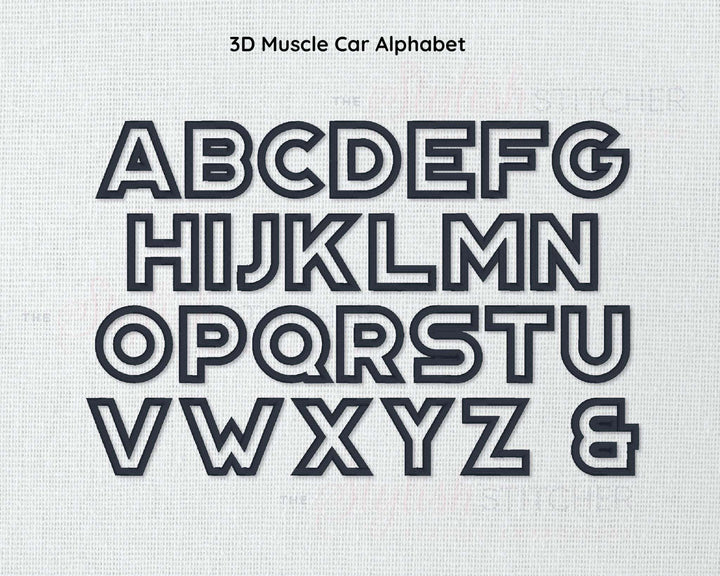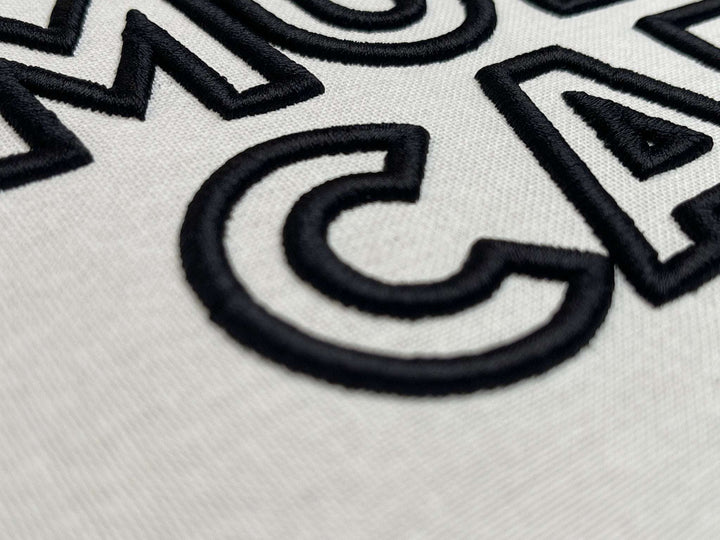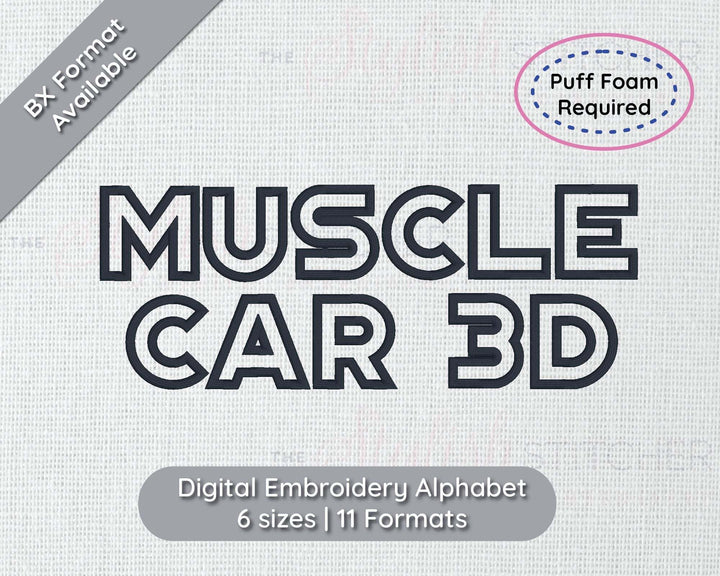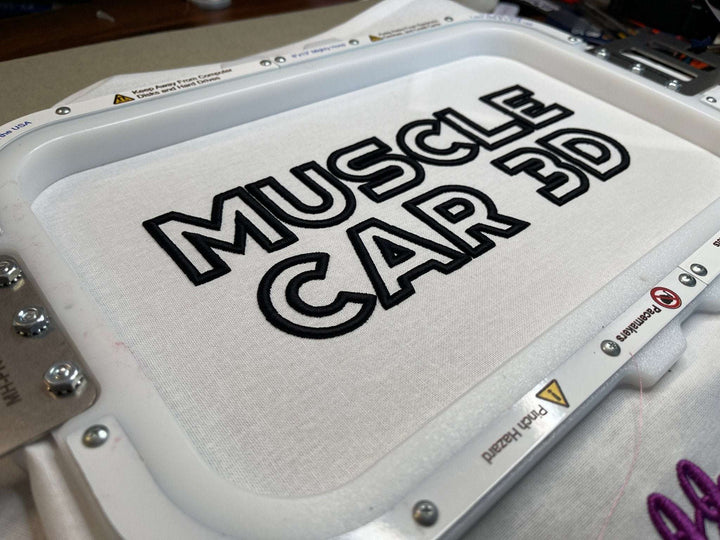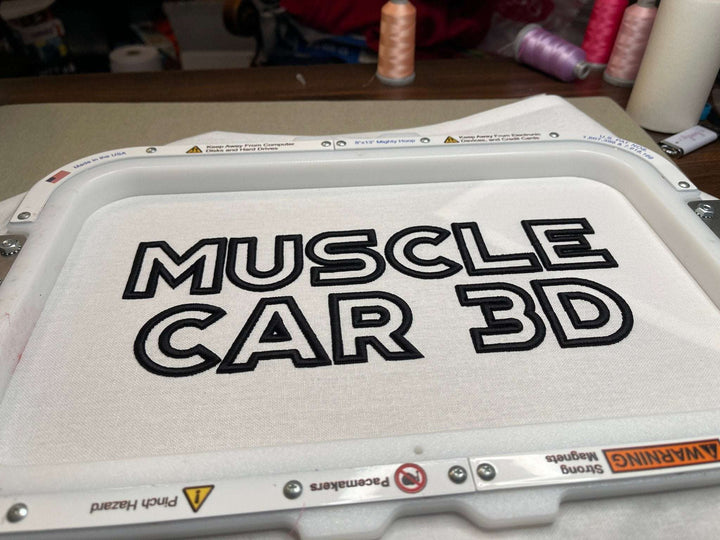
Photograph of Muscle Car 3D embroidery font
Photograph of Muscle Car 3D embroidery font alphabet
Close up photograph of stitched out Muscle Car 3D embroidery font
Photograph of Muscle Car 3D embroidery font
Muscle Car 3D Puff Digital Embroidery Font
Muscle Car 3D is a fresh take on outline fonts. Digitized specifically for puff foam, this clean looking font is perfect for sweatshirts, shirts and caps!
Stitch Type: Satin Stitch for 3D Puff